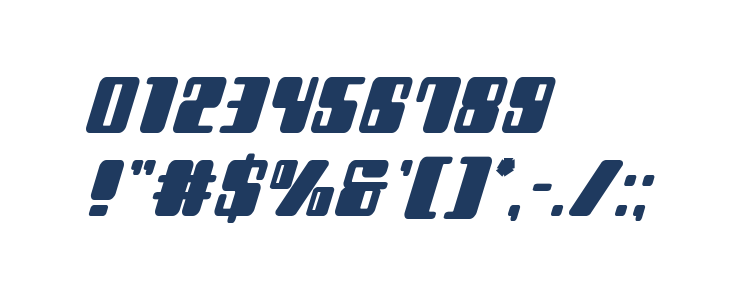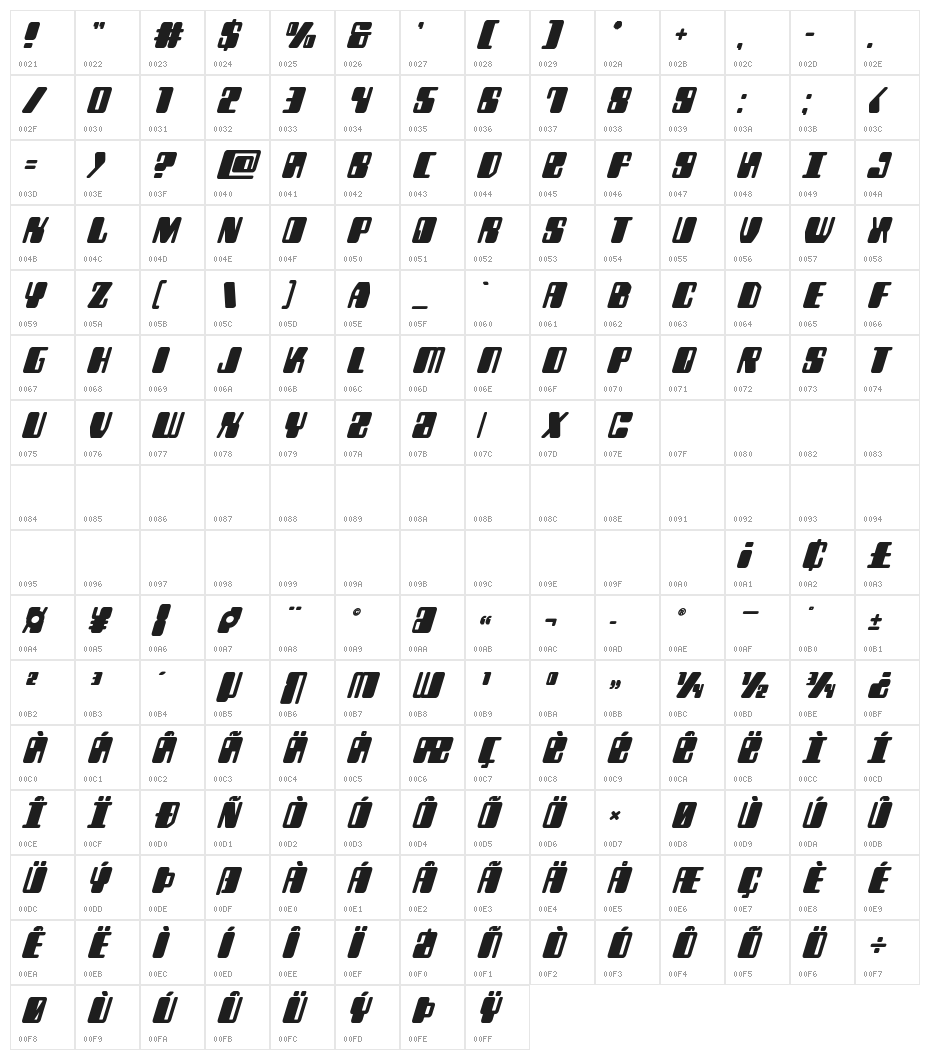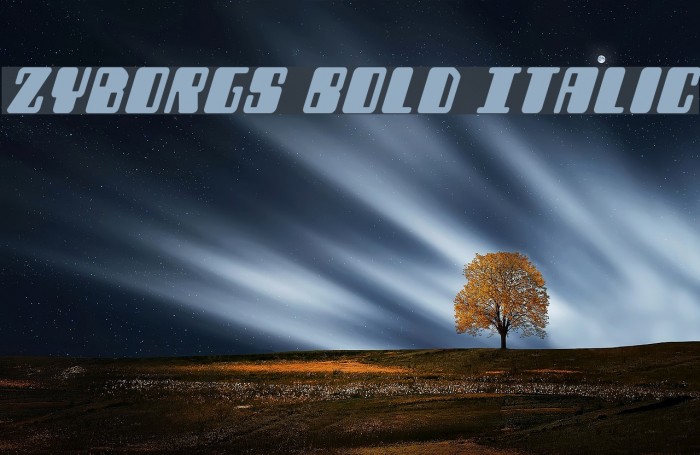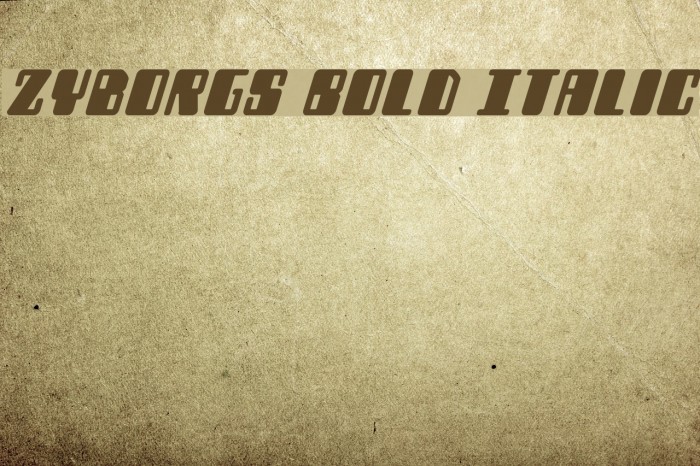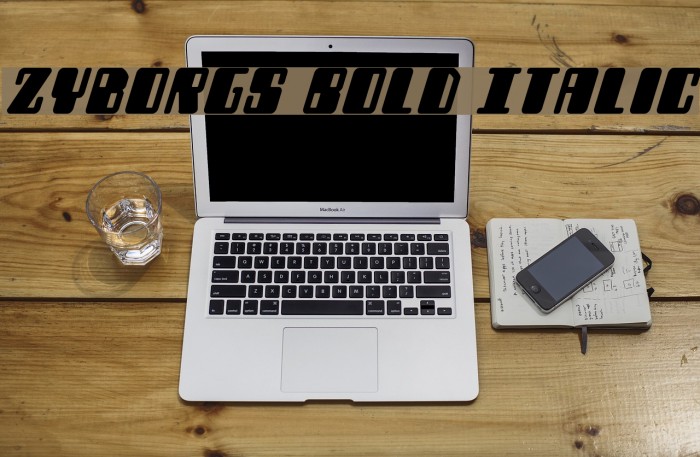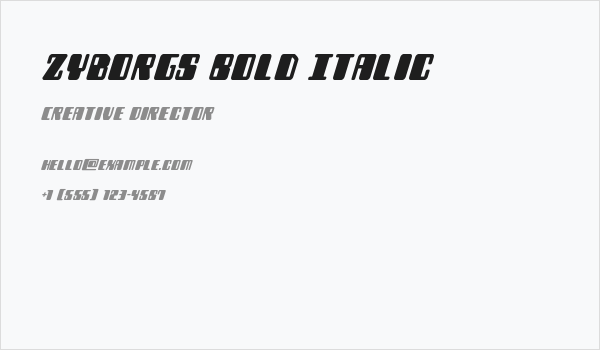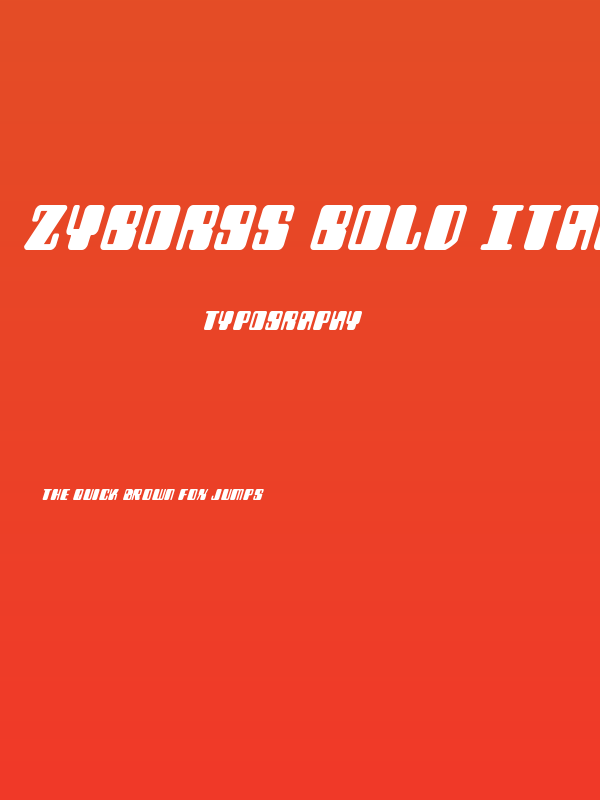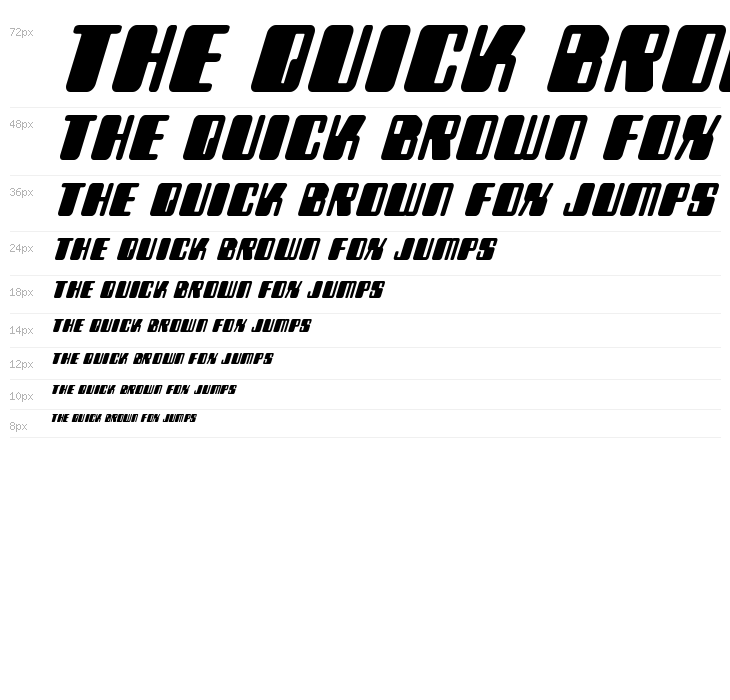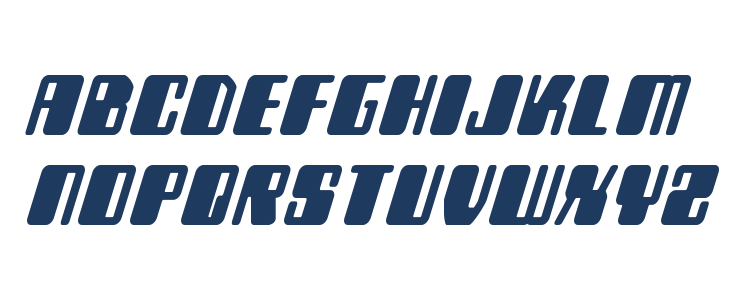
Zyborgs Bold Italic Font
Zyborgs Bold Italic Description
This font features a bold and italicized style with a futuristic and dynamic appearance. The characters are designed with sharp angles and a slightly slanted orientation, giving them a sense of motion and energy. The bold weight ensures strong visibility, making it suitable for attention-grabbing designs. The uppercase and lowercase letters maintain a consistent style, while the numerals and special characters complement the overall aesthetic. The font's unique design elements make it stand out, perfect for modern and tech-oriented projects.